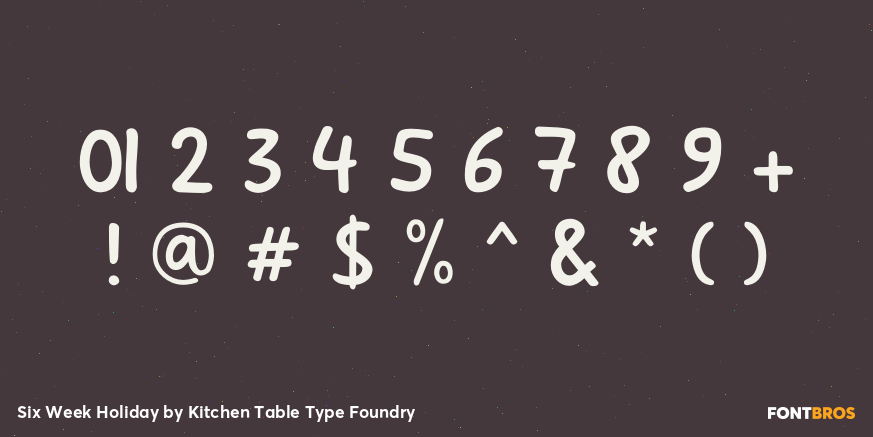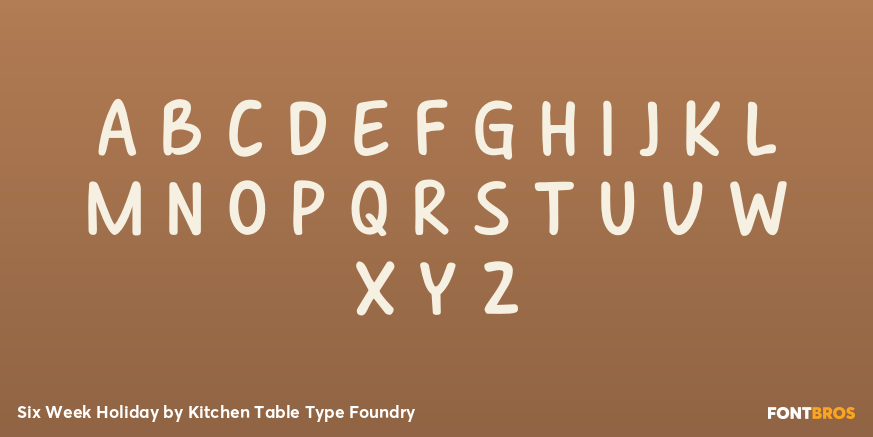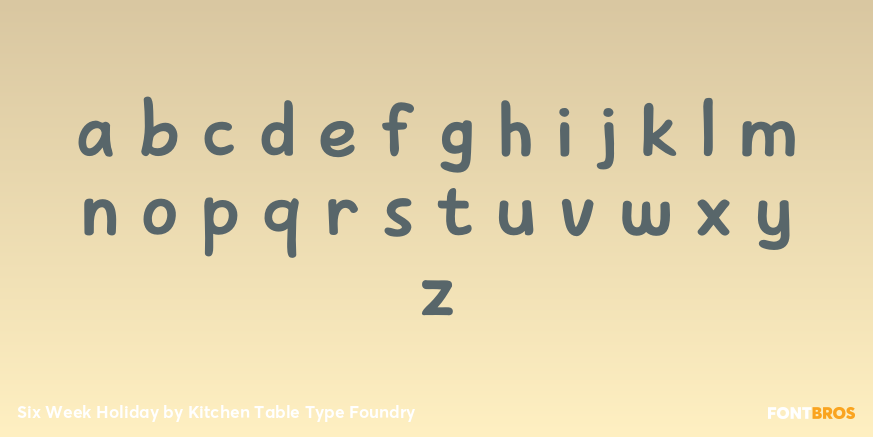
Six Week Holiday
In Holland, all kids have a six week long school holiday during the summer months. To prevent chaos, traffic jams and other madness, the government has divided the country in three regions (North, Middle and South) and school holidays start a few days to a week and a half apart. For kids this is the best time of the year, as they can have fun for a month and a half, but for us parents this sometimes is a bit of a logistic nightmare, as we still have to work!
Six Week Holiday is an ode to the chaos of summer. It is a cute handmade 'school? font that will put some sunshine in your designs! Comes with extensive language support.